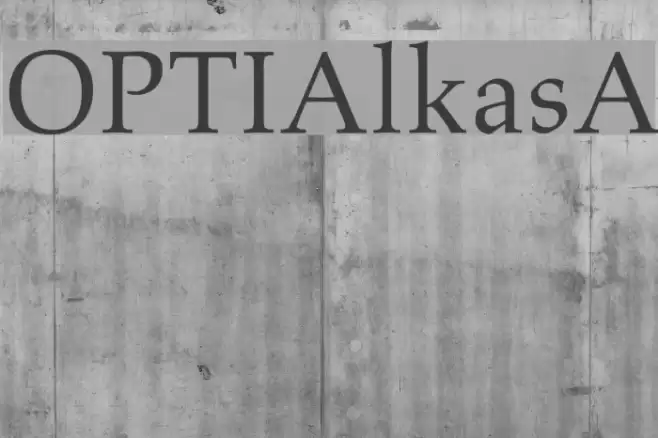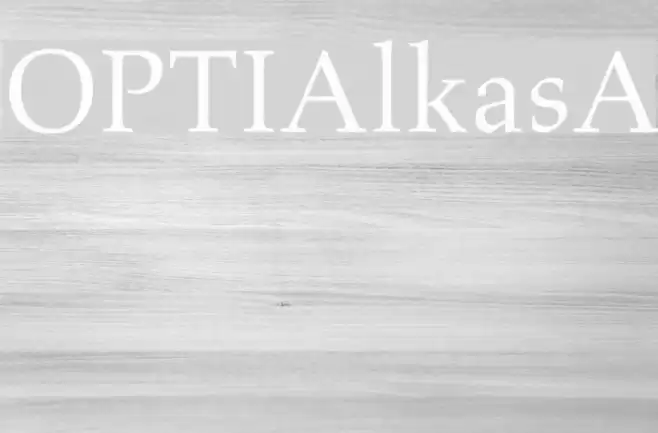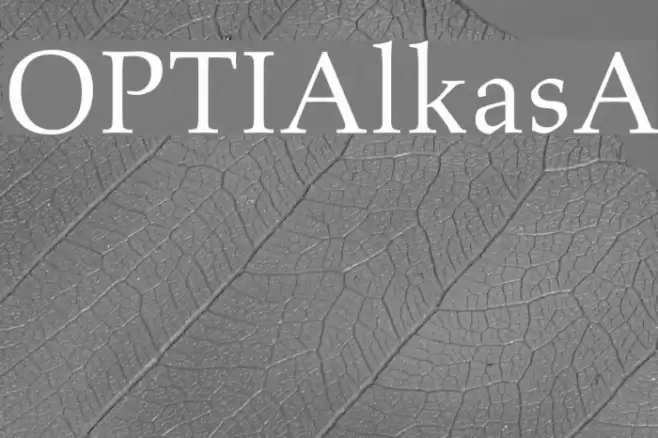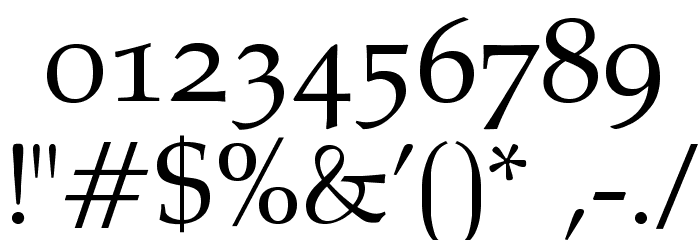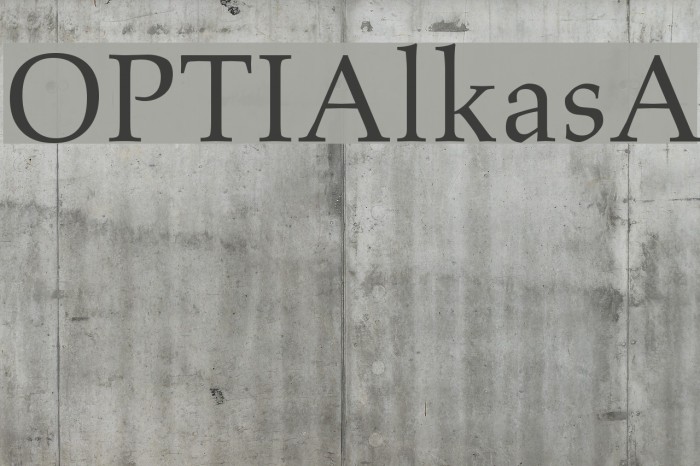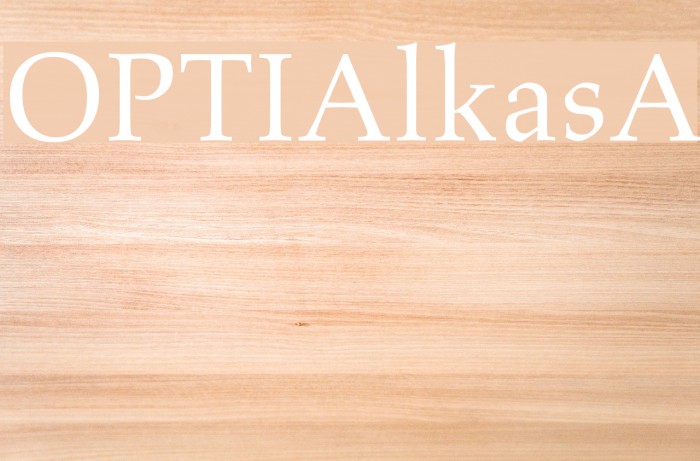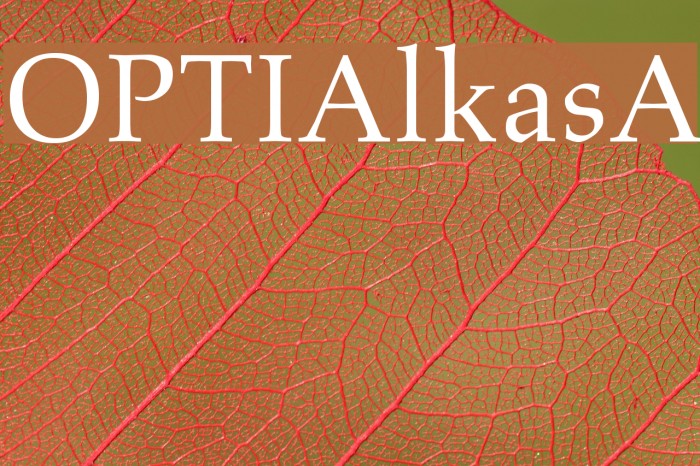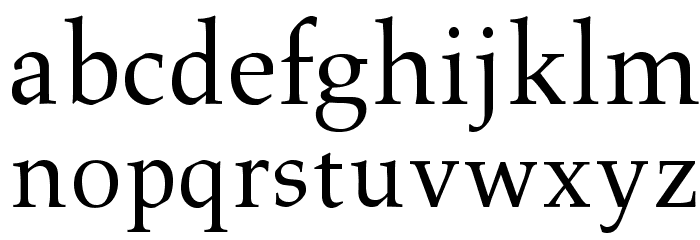
OPTIAlkasA
This font exhibits a classic serif style, characterized by its elegant and timeless appearance. The serifs are well-defined, providing a traditional and formal look. The uppercase letters are tall and stately, while the lowercase letters maintain a consistent x-height, ensuring readability. The numerals are proportionate and align well with the overall design, making them suitable for both text and display purposes. Special characters are crafted with attention to detail, complementing the font's overall aesthetic. The font's design is versatile, making it suitable for a wide range of applications, from editorial design to branding.
A classic serif font with elegant, well-defined serifs and a timeless appearance.
- Proposed Projects: Ideal for editorial design, book covers, branding, and formal invitations.
- Category: Serif
- Overall Style: Classic